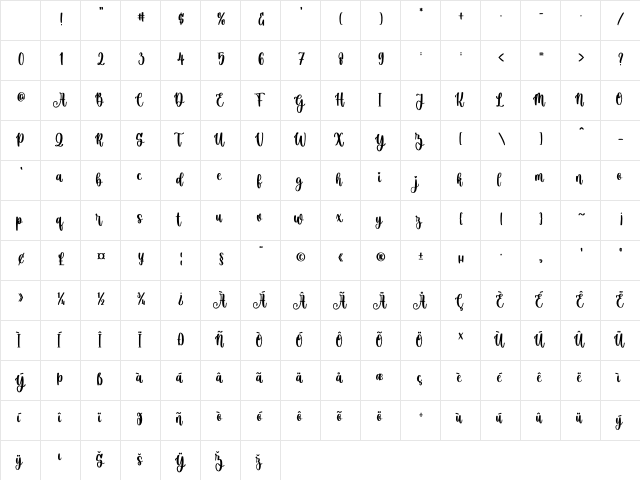
Complete Christmas Ambience Regular glyph index. Displaying only characters natively supported by Christmas Ambience Regular font.
Christmas Ambience is a composed and adaptable typeface that performs quietly and consistently across a wide range of design contexts.